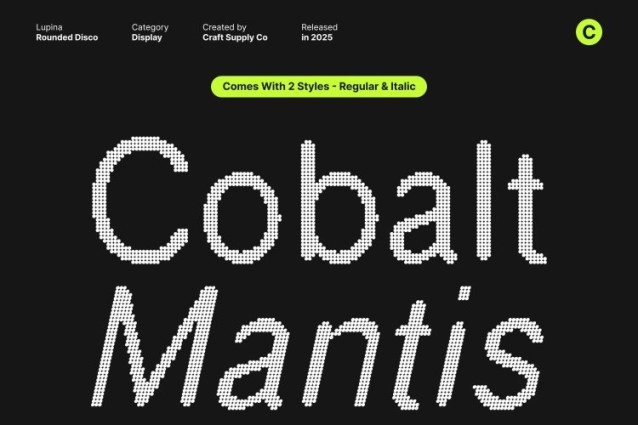
Lupina Rounded Disco Font
Lupina Rounded Disco Font This sleek sans serif grotesk font embodies the perfect blend of contemporary clarity and refined minimalism. Its clean lines and balanced proportions create a modern, polished look that effortlessly elevates any design. With its versatile and streamlined structure, this typeface adds a sense of professionalism wrapped in smooth, understated elegance.
Disco Style for Shine, Glamour, and Sparkling Energy
Infused with a radiant disco effect, each character glows with shimmering highlights that bring a dazzling, glamorous vibe. The sparkling texture adds dynamic energy, making every letter stand out with eye-catching brilliance. This luxurious disco styling transforms the font into a vibrant visual element, ideal for projects that want to feel lively, stylish, and boldly expressive.
Perfect for Branding, Posters, and Editorials
Designed to adapt effortlessly across various creative fields, this font excels in branding, poster designs, editorial layouts, digital graphics, and more. Its geometric precision ensures sharp readability, while the disco flair injects personality and flair, making your compositions unmistakably modern and visually captivating.
A Fresh, Modern, and Eye-Catching Design Essence
Combining sleek grotesk shapes with sparkling disco charm, this typeface delivers a look that is both contemporary and unforgettable. It strikes the perfect balance between clean simplicity and glamorous excitement, making it the ideal choice for designers who want their work to shine with sophistication and vibrant visual appeal.